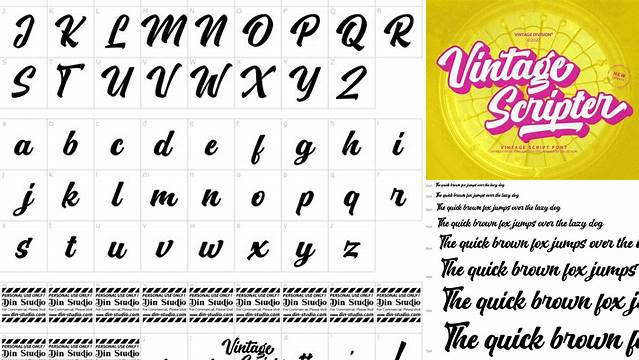
Hey there, design enthusiasts! If you're on the hunt for a font that screams vintage charm and handwritten authenticity, then you've stumbled upon the right place. This article is your one-stop guide to the Vintage Scripter Font, a delightful typeface that's perfect for adding a touch of old-school elegance to your projects. We'll dive into where you can snag a free download of this beauty, explore its versatile uses, and uncover why it's a must-have in your font arsenal. Get ready to inject some serious personality into your designs!
What is the Vintage Scripter Font?
Alright, let's get down to brass tacks. The Vintage Scripter Font is a captivating script font that beautifully mimics the look of handwritten script. Think of it as a digital version of those elegant pen strokes you might find on vintage postcards, classic movie posters, or stylish wedding invitations. It's got that perfect blend of formality and flair, making it incredibly versatile for a wide range of design applications. Its calligraphic and fluid strokes give off an air of sophistication, but without feeling stuffy or overly rigid. Instead, it carries a warmth and approachability that makes it perfect for connecting with your audience on a more personal level. The beauty of this typeface lies in its ability to instantly evoke a sense of nostalgia, carrying the feeling of times gone by. The font is designed to have varying weights, allowing for a range of styles and moods. This allows designers to have flexibility. From elegant branding materials to quirky social media graphics, the Vintage Scripter Font adds that distinctive character. Its unique curves, serifs, and connections between characters give it an overall look that is visually appealing and pleasing. It is this attention to detail that allows the font to really catch the eye of the viewer, setting a memorable impression. Whether you're a seasoned graphic designer or a budding creative, understanding the characteristics of the Vintage Scripter Font can significantly elevate your projects. With its elegance and the capacity to bring charm to your design, this font can give a unique touch to your creative process. The font’s ability to capture a sense of history while feeling refreshingly modern is why it remains a popular choice for creators. It's not just a font; it's a statement, a subtle nod to the golden age of design, while simultaneously keeping up with the demands of modern aesthetics. The Vintage Scripter Font will definitely make your work stand out.
Key Features and Characteristics:
- Elegant Script: The flowing, handwritten style adds a touch of sophistication.
- Versatile: Suitable for various design projects, from logos to invitations.
- Vintage Aesthetic: Instantly evokes a sense of nostalgia and old-world charm.
- High Readability: Despite its decorative style, it remains legible, making it great for headings and short texts.
How to Use the Vintage Scripter Font in Your Designs
Now that you have your free download and the font installed, it's time to unleash your creativity! The Vintage Scripter Font is incredibly versatile, making it suitable for a wide range of design applications. You can use it to inject personality and sophistication into your projects. Let's look at some awesome ways to put this font to work.
Design Ideas:
- Logos and Branding: This font is perfect for creating elegant logos or branding elements. It adds a unique, custom feel, making your brand stand out. The Vintage Scripter Font’s handwritten appearance gives a personal touch to brand identities, helping establish a memorable connection with the audience. Its aesthetic is easily adaptable to different brand personas, giving it considerable appeal. It adds a layer of sophistication and warmth to branding material, making it both inviting and engaging. From creating a logo to designing brand guidelines, the Vintage Scripter Font can enhance visual identity.
Conclusion: Unleash Your Creativity with the Vintage Scripter Font
So, there you have it! The Vintage Scripter Font is a fantastic addition to any designer's toolkit, offering a blend of elegance, nostalgia, and versatility that can elevate your projects. With the information on where to find a free download and how to use it effectively, you're well-equipped to start incorporating this beautiful typeface into your designs. Get out there, experiment, and let your creative flair shine! Don't be afraid to explore different combinations and uses. Happy designing! The Vintage Scripter Font is waiting to enhance your artistic vision. Let the font be your companion in all your design adventures.